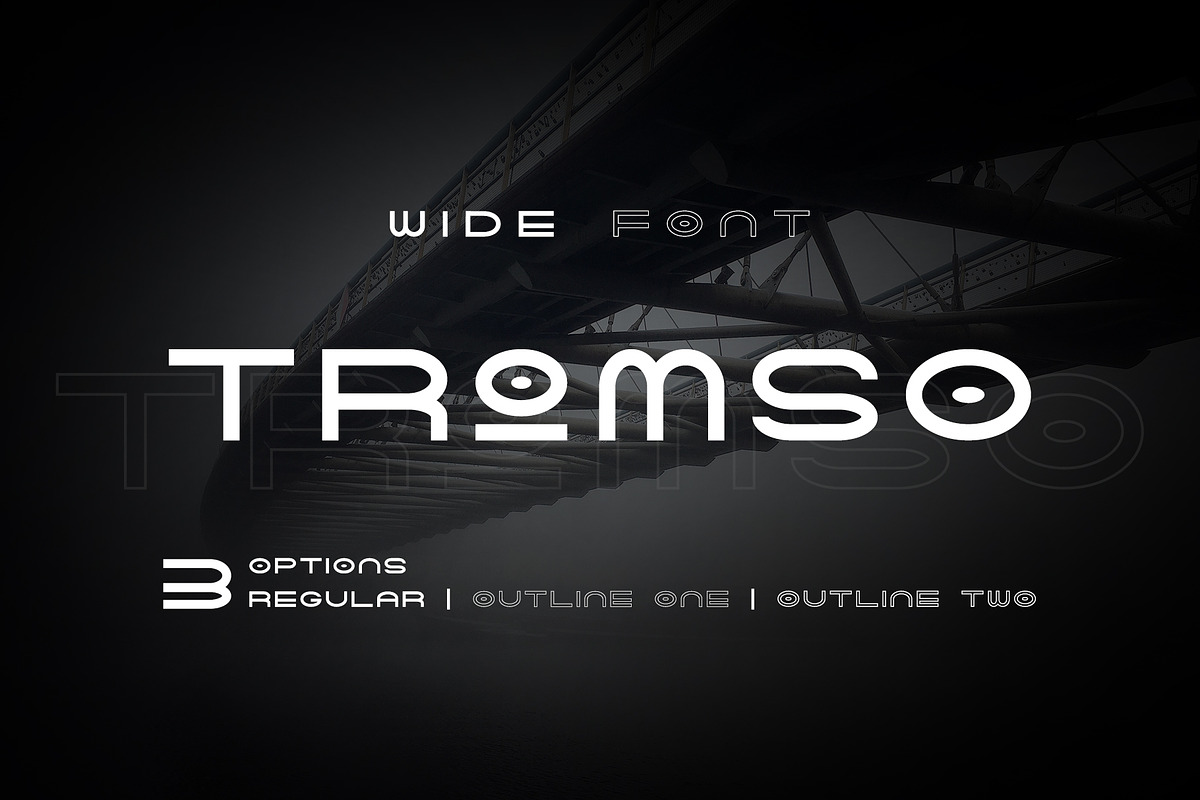
Tromso - Wide Sans Serif
Tromso is an extra wide sans serif font typeface. The family includes 3 fonts in a variety of styles. The uppercase alphabet in each font / style has been wide extended to allow for easy customization and creative control of character widths. Includes uppercase multilingual letters, numbers and punctuation. Well kerned. Including cyrillic. Perfect for logotypes, posters, app, etc.
- Tromso Regular
- Tromso Regular Outline One
- Tromso Regular Outline Two